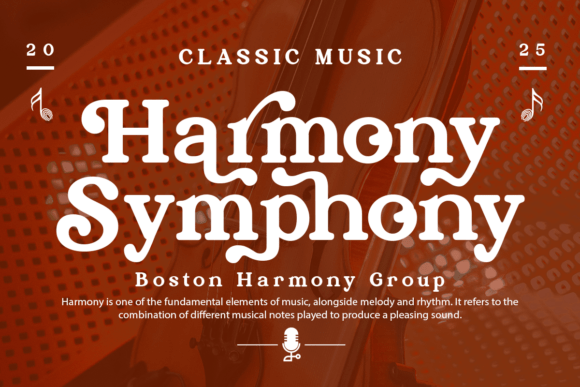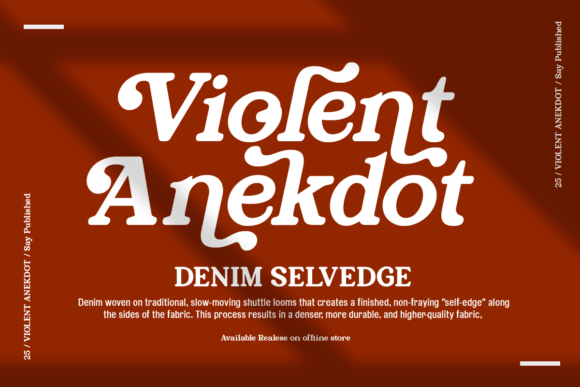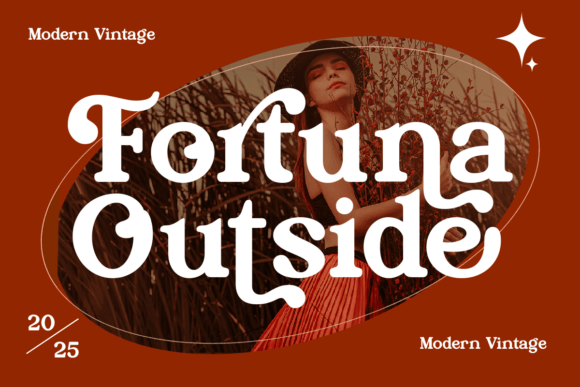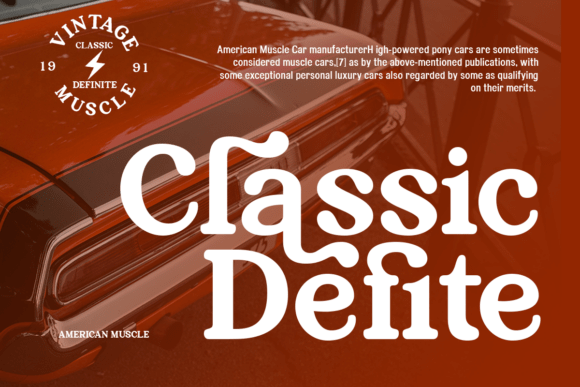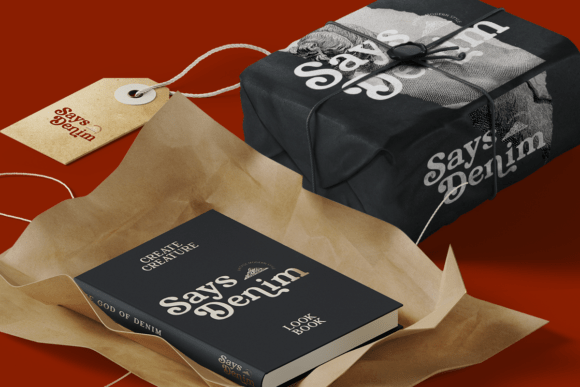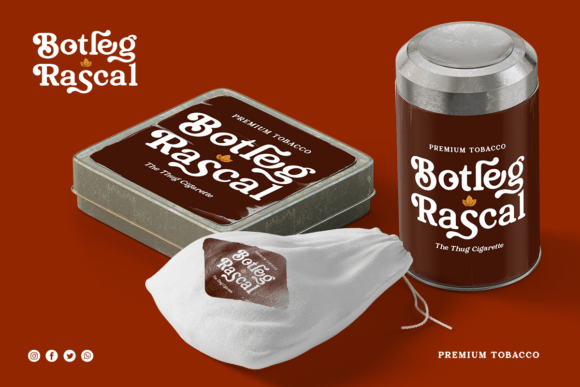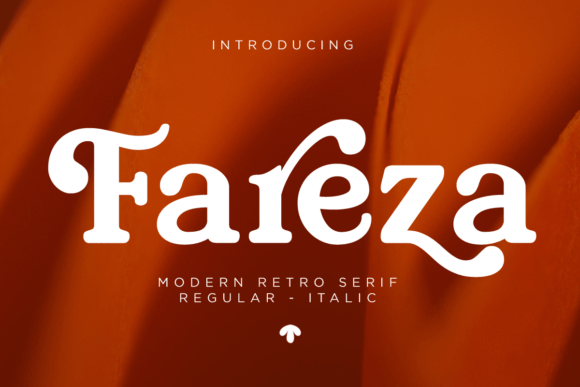
Fareza Font: Elevate Your Designs with Timeless Elegance and Modern Sophistication
In the world of typography, few fonts manage to strike a balance between vintage charm and contemporary flair. Fareza Font is one such exceptional typeface that seamlessly merges modern retro aesthetics with a fresh, stylish appeal. This stunning serif font is perfect for designers and crafters looking to add a touch of elegance and sophistication to their projects.
What Makes Fareza Font Stand Out?
Fareza is more than just a font; it’s a design statement. Its bold curves, unique serifs, and smooth letterforms bring a timeless charm to any design, making it perfect for a wide range of applications. Whether you’re working on logos, posters, packaging, book covers, or headlines, Fareza adds a bold yet classy personality to your work.
One of the standout features of Fareza is its versatility. The font comes in Regular and Italic styles, making it suitable for both classic and creative projects. This flexibility allows designers to experiment with different looks and tones, from nostalgic and vintage to modern and sleek.
Fareza Font is incredibly versatile, making it an excellent choice for various design projects, including:
- Branding: Create memorable logos and brand identities with Fareza’s unique and stylish letterforms.
- Editorial Design: Add a touch of sophistication to your editorial projects, such as magazines, newspapers, and blogs.
- Vintage Logos: Give your designs a nostalgic feel with Fareza’s vintage-inspired aesthetic.
- Packaging: Make your product packaging stand out with Fareza’s bold and eye-catching letterforms.
- Invitations: Create beautiful and elegant invitations for special occasions, such as weddings, parties, and events.
PUA-Encoded for Effortless Customization
Fareza Font is PUA-encoded, which means that it comes with a built-in set of glyphs, swashes, and alternate characters. This feature allows designers to customize their creations with ease, making it simple to experiment with different looks and styles.
With Fareza, you can effortlessly access and use the font’s extensive character set, including:
- Glyphs: Alternate characters and symbols to add visual interest to your designs.
- Swashes: Decorative flourishes to enhance your typography and add a touch of elegance.
- Alternate Characters: Different versions of letters and symbols to experiment with and create unique looks.
Why Choose Fareza Font?
With so many fonts available, why choose Fareza? Here are just a few reasons why Fareza Font stands out:
- Unique Design: Fareza’s distinctive letterforms and serifs make it a one-of-a-kind font that will set your designs apart.
- Versatility: With Regular and Italic styles, Fareza is suitable for a wide range of design projects and applications.
- Ease of Use: PUA-encoding makes it easy to access and use the font’s extensive character set.
- Timeless Appeal: Fareza’s vintage-inspired aesthetic ensures that your designs will remain stylish and relevant for years to come.
In conclusion, Fareza Font is an exceptional typeface that offers a perfect blend of vintage elegance and modern sophistication. Its unique design, versatility, and ease of use make it an excellent choice for designers and crafters looking to elevate their designs. Whether you’re working on branding, editorial design, packaging, or any other project, Fareza Font is sure to deliver a timeless and stylish appeal that will leave a lasting impression.